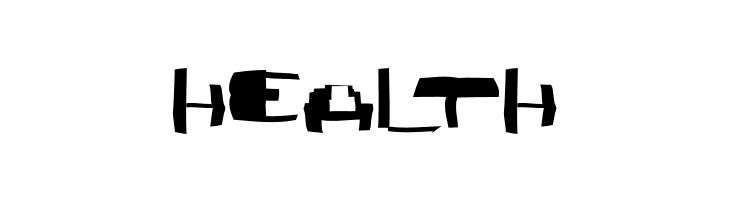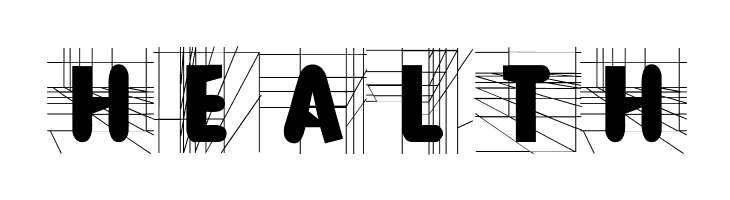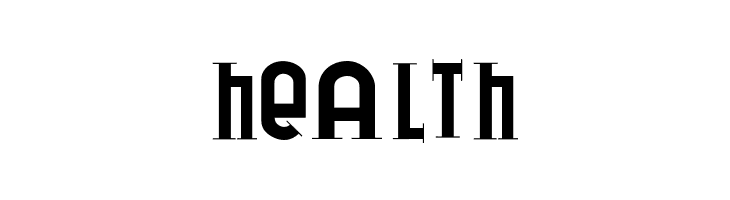
A clean, modern sans-serif font with geometric uniformity.
A playful, hand-drawn font with quirky, uneven strokes.
The image features abstract, character-like designs, not a functional font.
A casual, handwritten font with fluid strokes and a personal touch.
Playful pictogram font made of animal silhouettes.
Ornate pictorial dingbat set with diverse, detailed illustrations.
A bold, puzzle-themed decorative font with playful character outlines.
A bold, puzzle-themed decorative font with medium contrast and normal spacing.
A bold, puzzle-themed font with characters enclosed in jigsaw shapes.
A geometric, modern font with clean lines and uniform stroke width.
A quirky, illustrative display font with stick-figure characters.
A bold, eclectic display font with punk and retro influences.
A decorative font featuring animal and nature motifs within bold, framed letters.
A modern, artistic font with characters enclosed in circles, featuring bold graphic elements.
A decorative font with bold outlines and intricate interior patterns.
A tall, narrow, hand-drawn font with a whimsical and artistic style.
A playful, bold font with irregular, chunky characters and a dynamic feel.
A distressed, grungy font with bold and textured characters.
A playful dingbat font with eclectic hand-drawn illustrations.
A futuristic, geometric font with a sleek, modern design and consistent stroke widths.
A futuristic, geometric, and condensed font with bold, rounded characters.
A sleek, futuristic italic font with smooth, continuous lines.
A futuristic, geometric font with bold, hollow letters and a shadow effect.
A futuristic italic font with a shadow effect and geometric design.